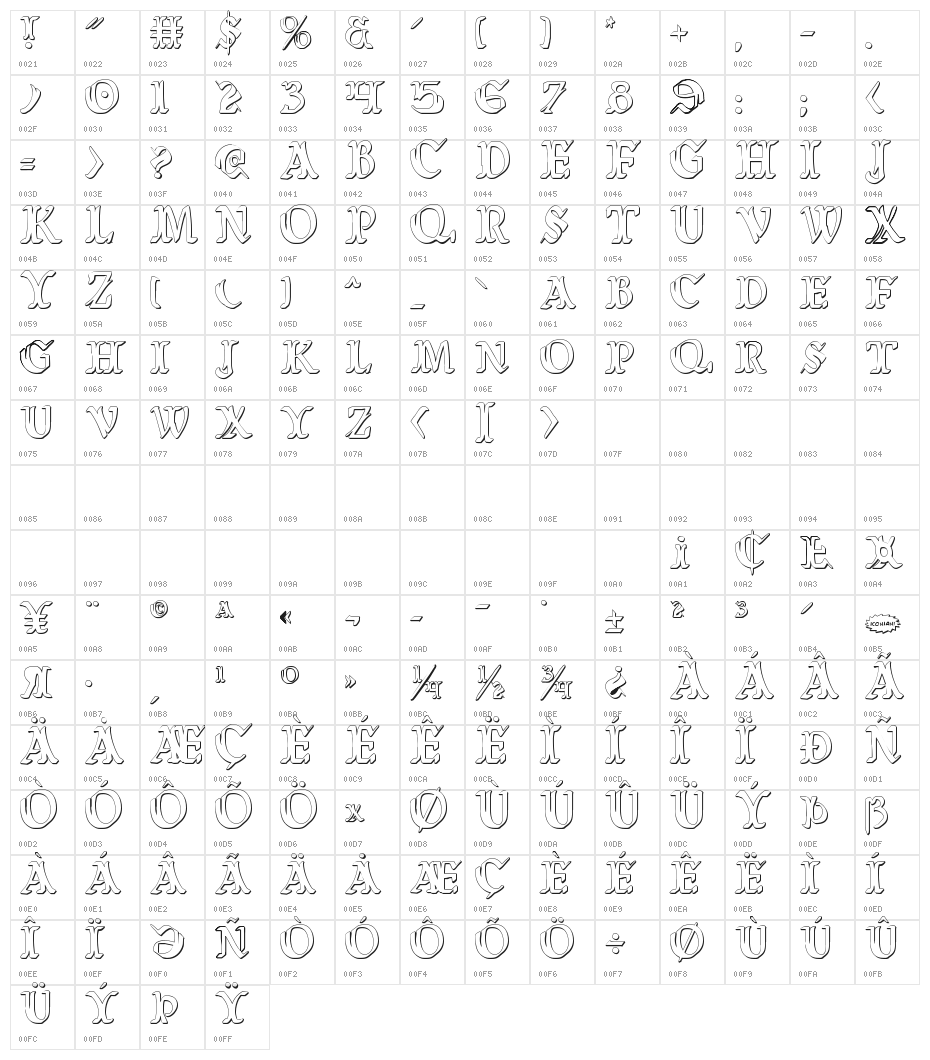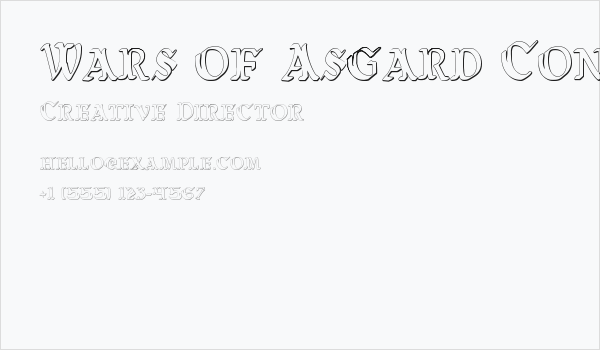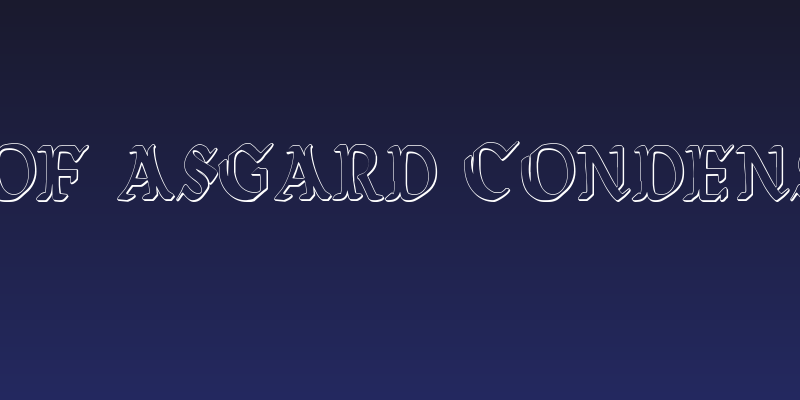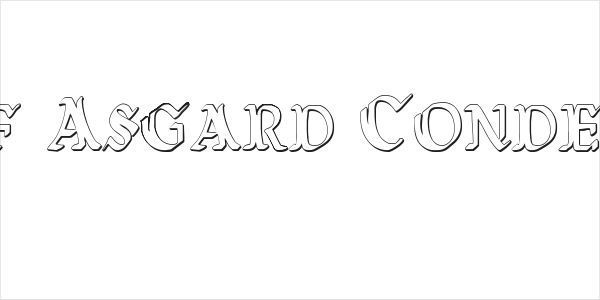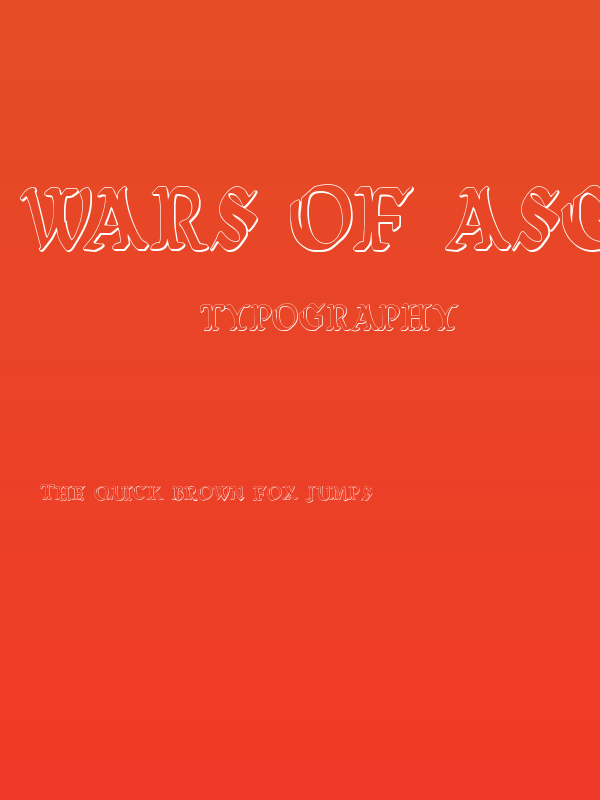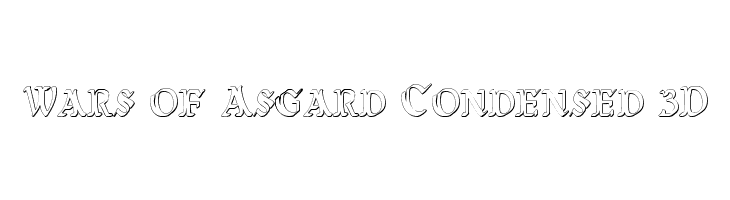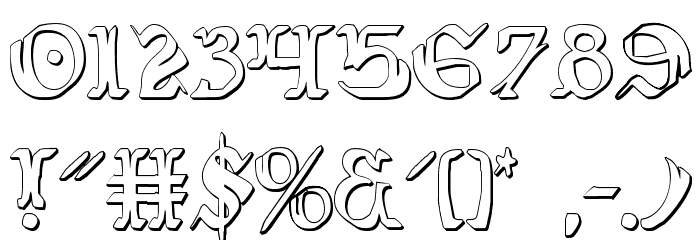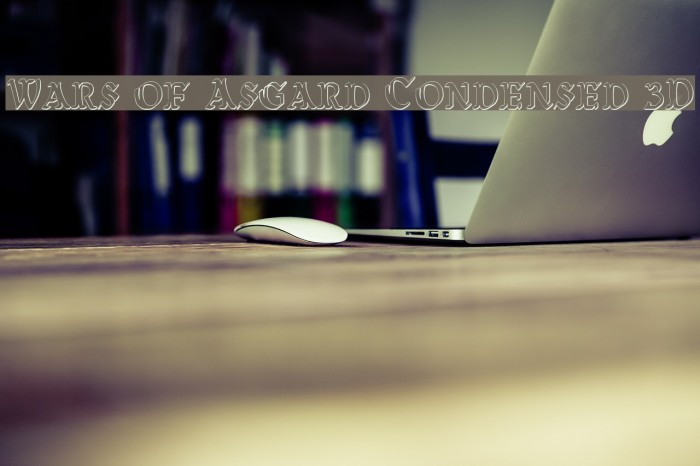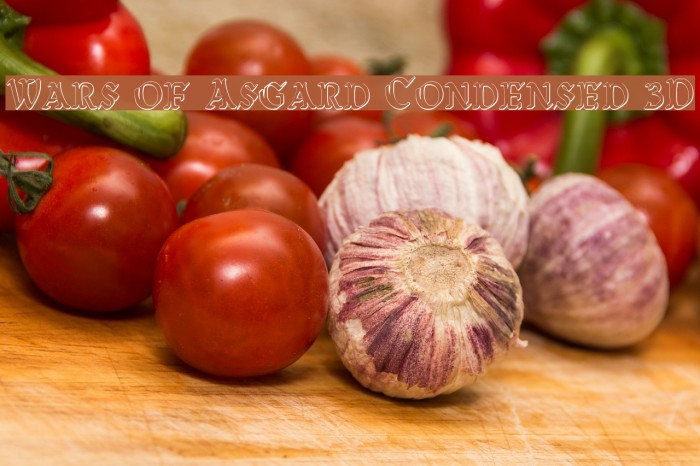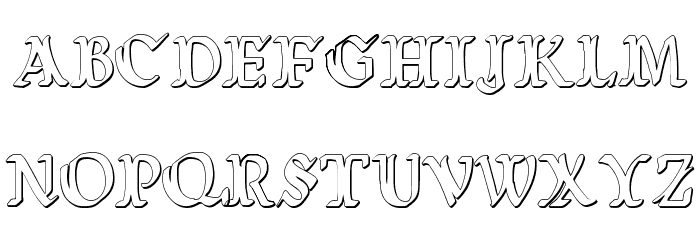
Wars of Asgard Condensed 3D Font
Wars of Asgard Condensed 3D Description
This font features a bold and striking 3D effect, giving each character a sense of depth and dimension. The letters are designed with a condensed width, making them appear tall and narrow, which adds to their dramatic appearance. The strokes are thick, with a medium contrast between the thick and thin parts, enhancing the 3D illusion. The style is reminiscent of classic and vintage typefaces, yet it maintains a modern edge with its clean lines and structured form. The characters are tightly spaced, contributing to the compact and cohesive look of the text.
| Overall Style | Vintage, Modern |
| Proposed Projects | Ideal for use in posters, logos, video game titles, and any project requiring a bold, eye-catching typeface. |